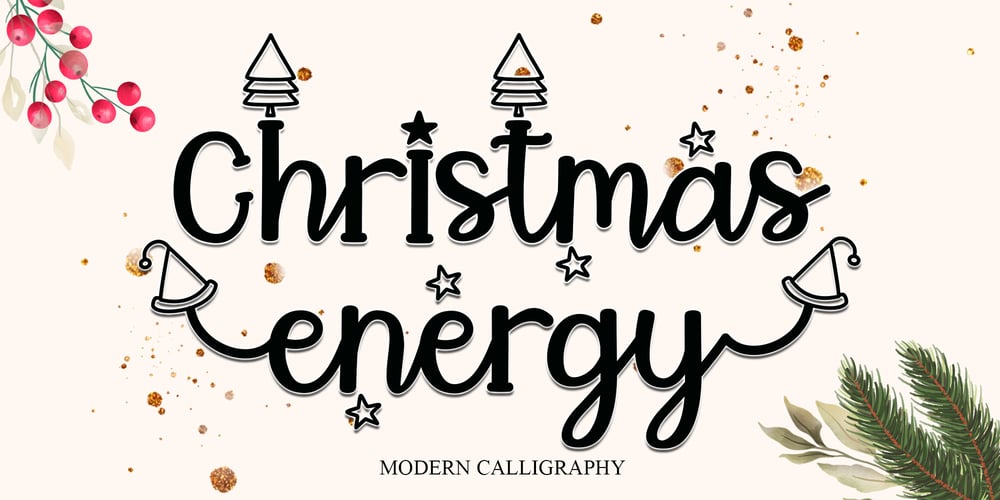
Christmas Energy Font Family was designed by Endri Sulistyawan and published by Rashatype. Christmas Energy contains 2 styles and family package options. Christmas Energy is a whimsical script font with a relaxed theme, featuring a lovely style. This font is PUA encoded which means you can access all of the glyphs and swashes with ease! Add it confidently to your favorite creations and let yourself be amazed by the outcome generated.